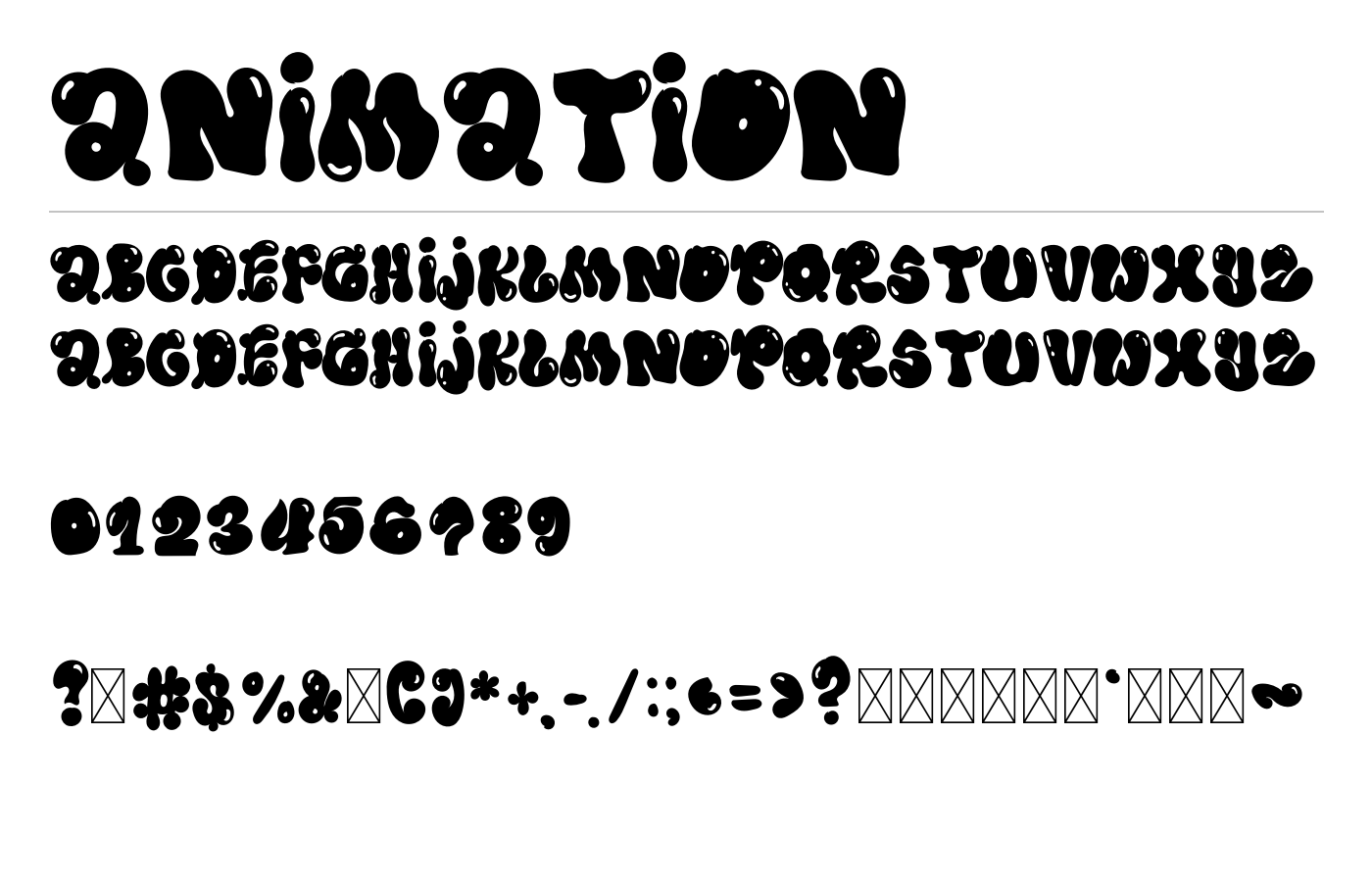
Animation Font is a bold, playful display typeface with a chunky, rounded style that feels lively and whimsical. Its heavy weight and bubbly, irregular shapes make it perfect for eye-catching headlines, logos, and creative projects that need a fun, energetic vibe. This font works best in informal and entertainment contexts where a bold, unique personality is key.
Animation Font
About Animation Font
| Font family | Animation Font |
| Designer | Nur Edi Prayitno |